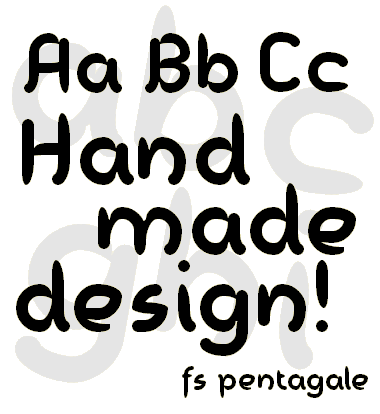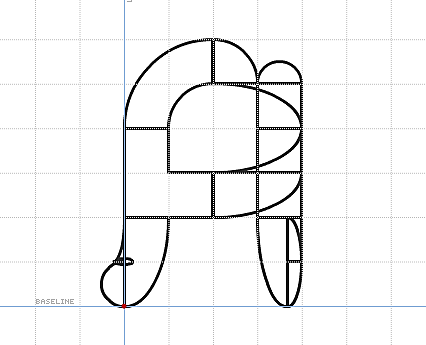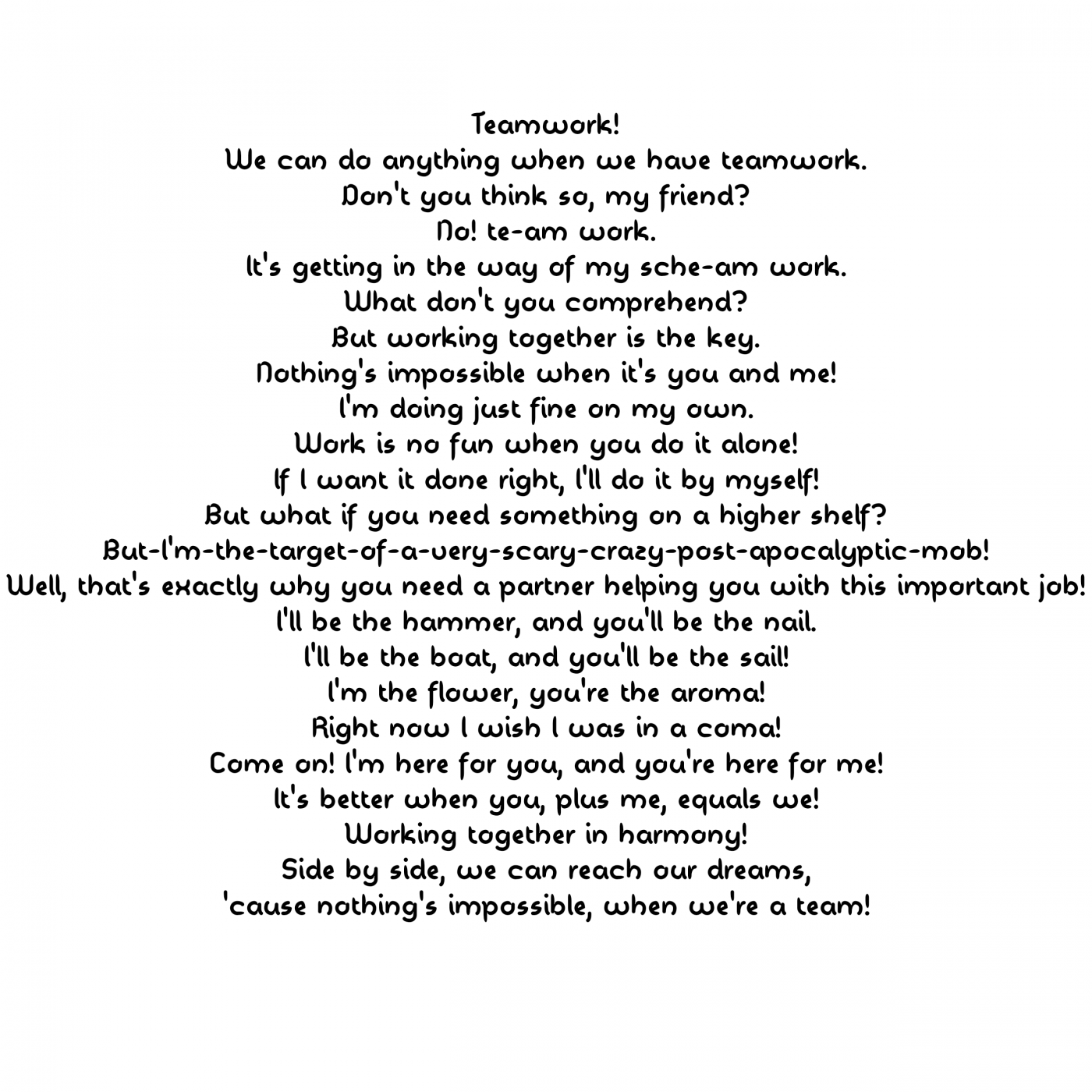
• Another marker-style experiment, this time with inktraps. The grid size makes for many difficulties, so some characters could be better (S, Z, e, x, etc.). Suggestions are very welcome for these glyphs, or any others. Thanks and enjoy!
5/16/14 S, Z, f, x, 2, $ and accents were tweaked by nudging. V1.1
1/30/15 The old, un-beautiful e and 7 have been fixed. Still looking for a solution for the 2. Also added Œ and œ. V1.2
6/7/16 Adjusted the 2 again; still not perfect, but better than before. Also narrowed the 7. V1.3
Thank you very much for the kind comments and Top Pick! I wasn't happy with the k, so I've changed it to fit in better. The old one is still available in Extended Latin A.
How'd ya do that?
@DLyons123: With 2x2 filters, and a lot of stacks and composites. Here's the structure of the "A":